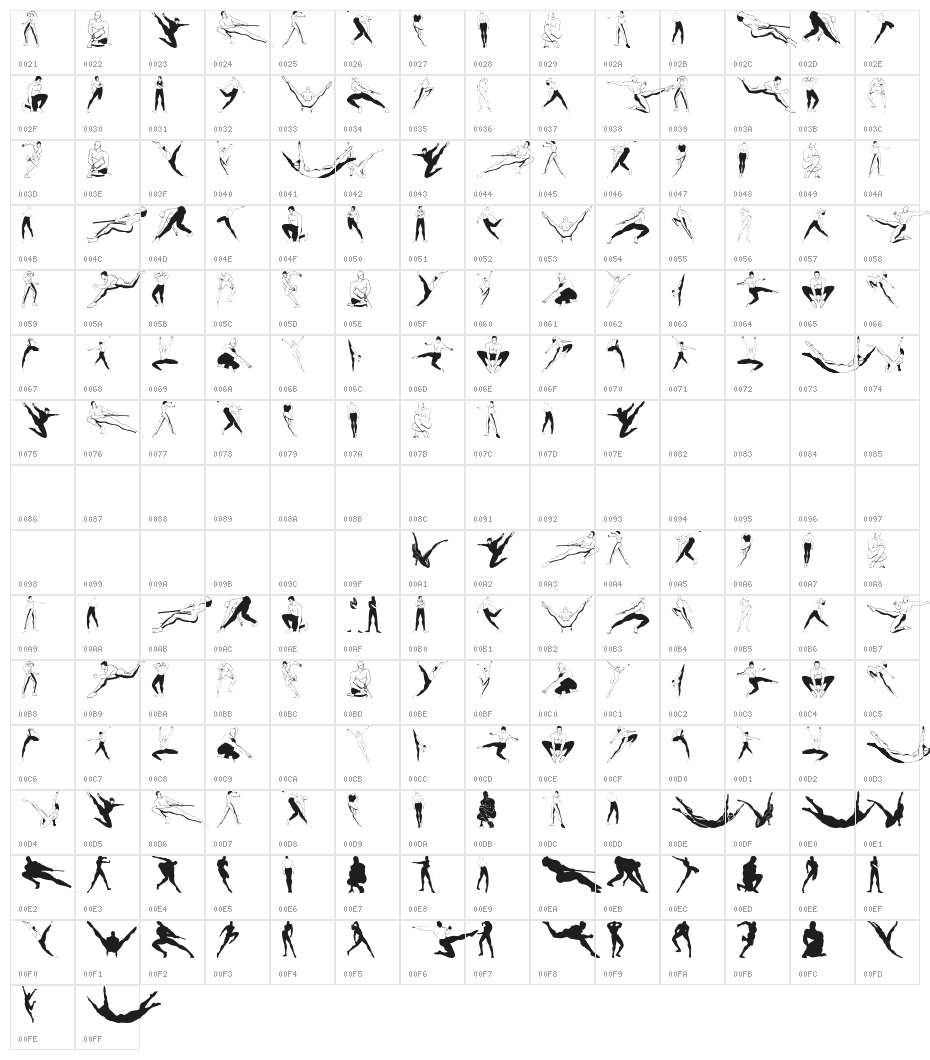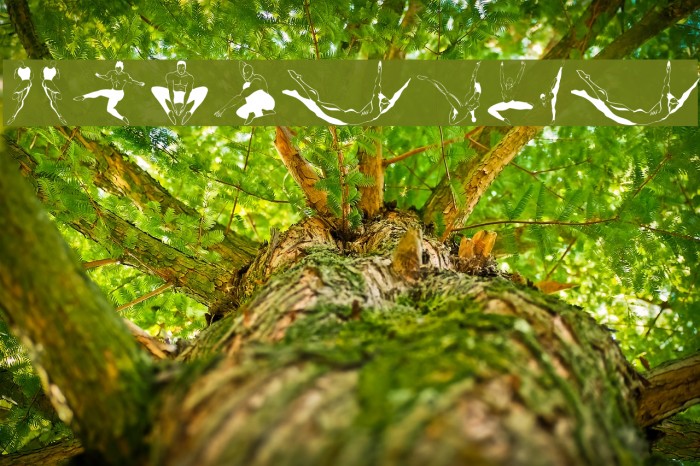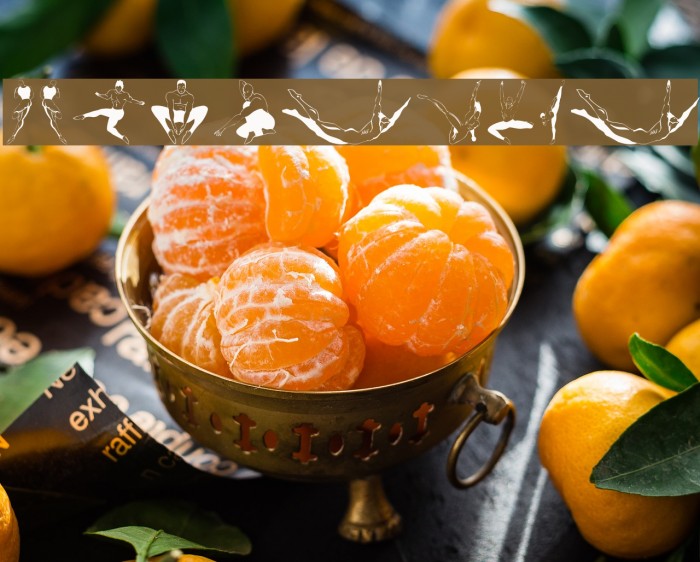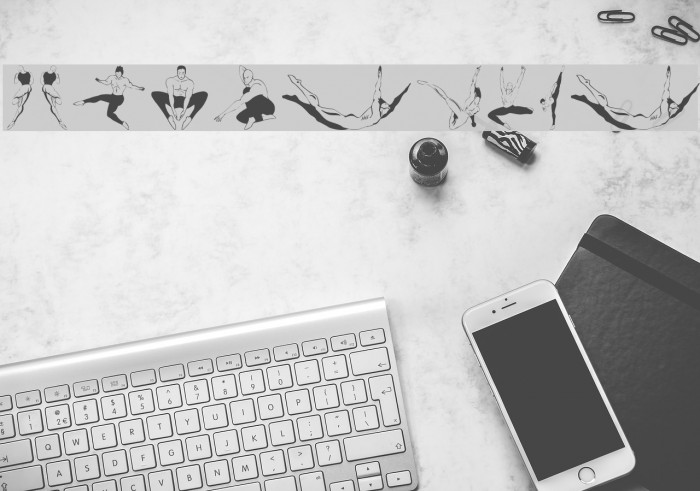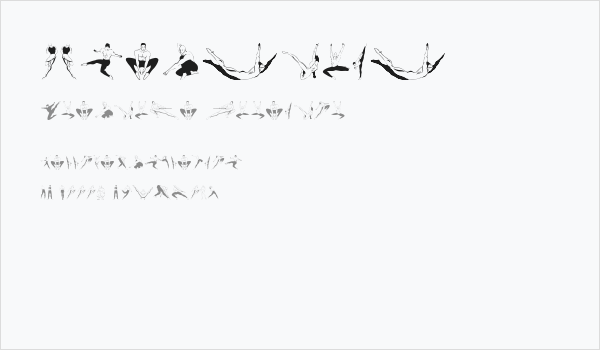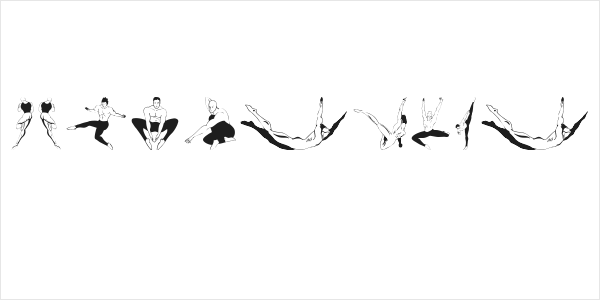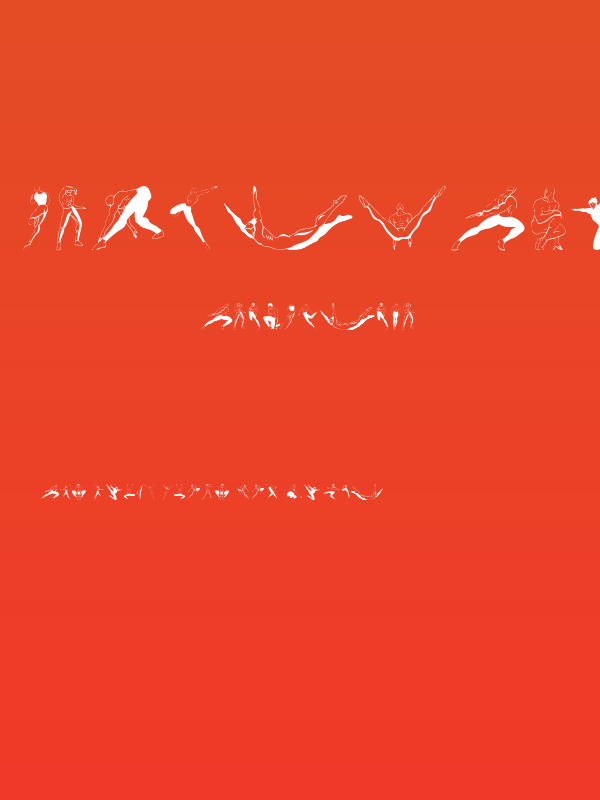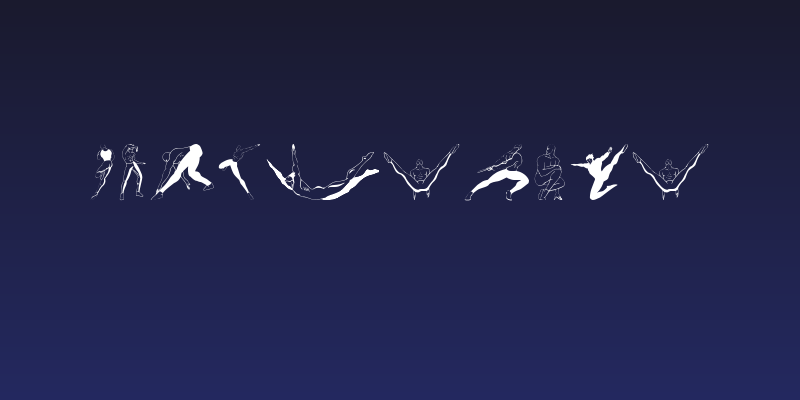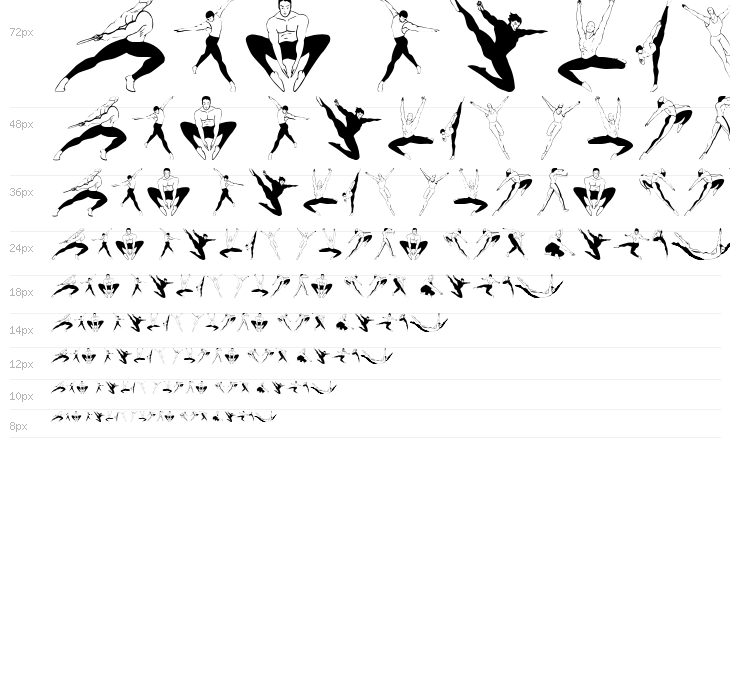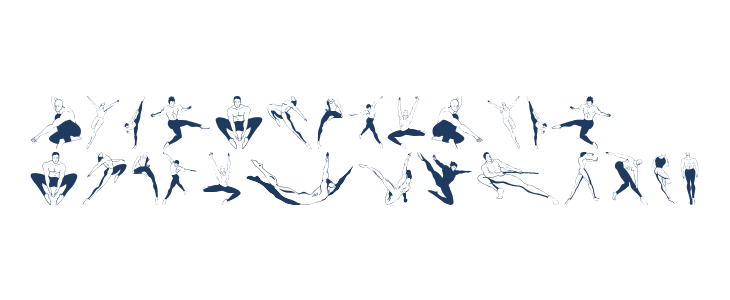
Gymnastics Font
A decorative font composed entirely of detailed human figures in various gymnastics poses, representing each character. The figures are stylized and dynamic, capturing the essence of movement and athleticism.
| Overall Style | Dynamic, Athletic, Decorative |
| Use Case | Logos, Headlines, Posters, Sports branding |
| Proposed Projects | Sports branding, fitness logos, event posters, athletic apparel design, and gymnastics-related promotional materials. |